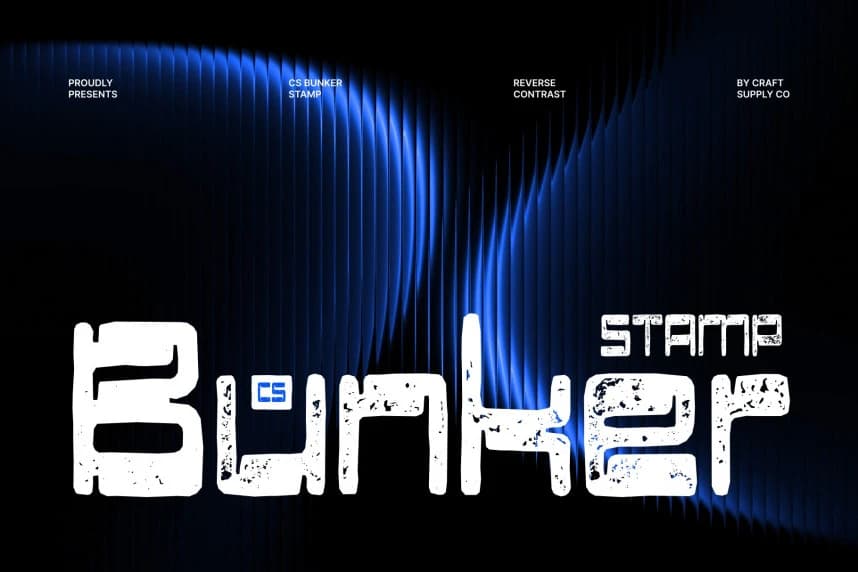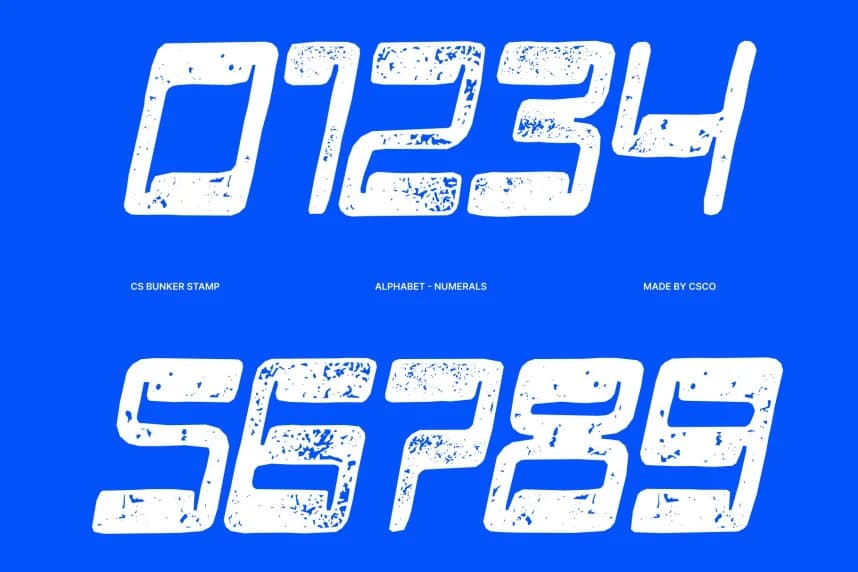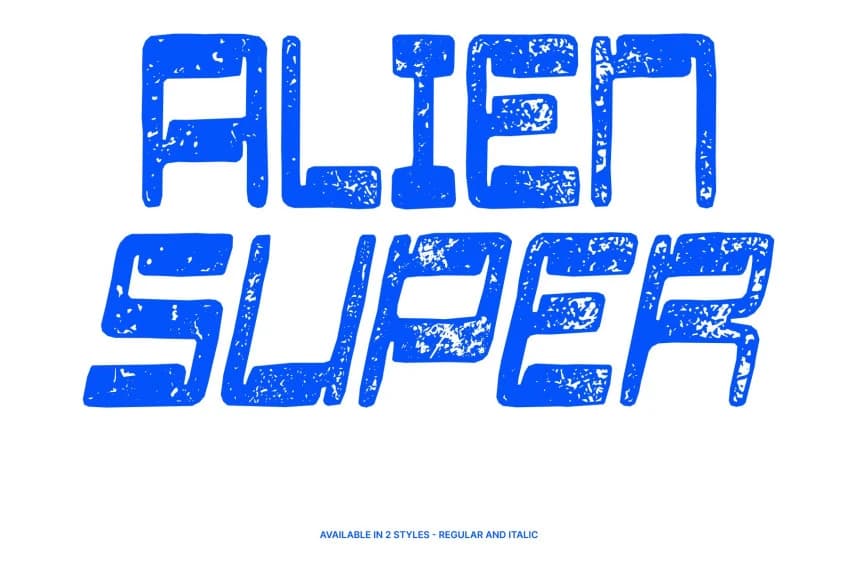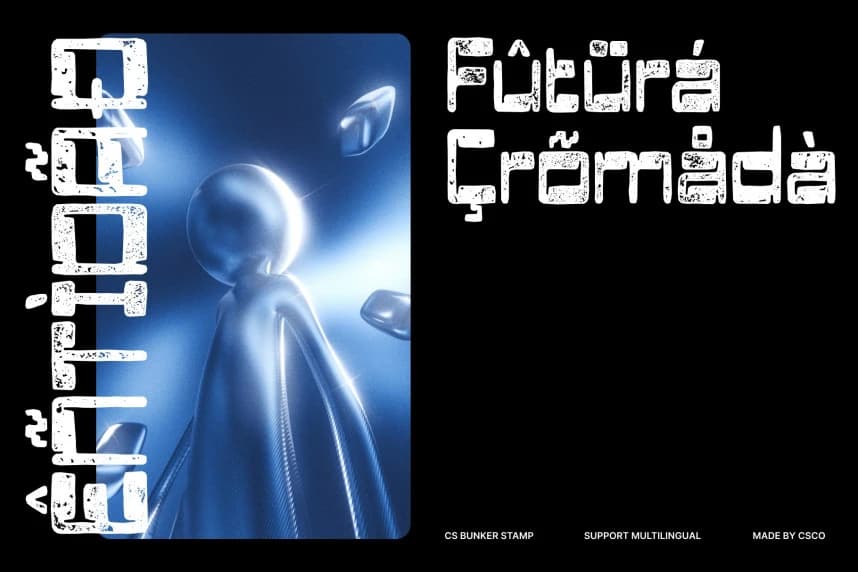
CS Bunker Stamp Font
CS Bunker Stamp Font – Reverse Contrast with Textured Retro Playfulness Distinctive Reverse Contrast Design. This is a display font that features a striking reverse contrast style, where the horizontal strokes are noticeably thicker than the vertical ones.